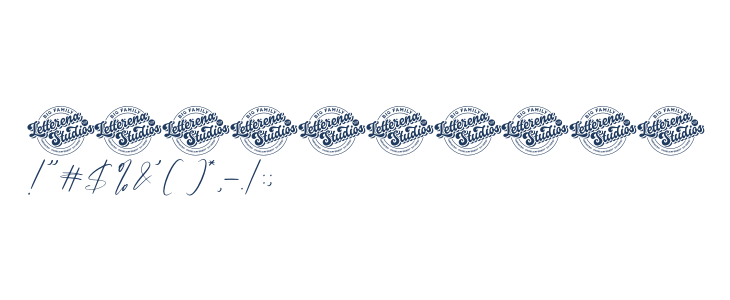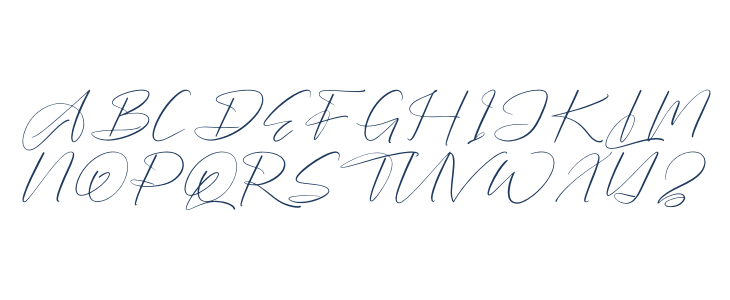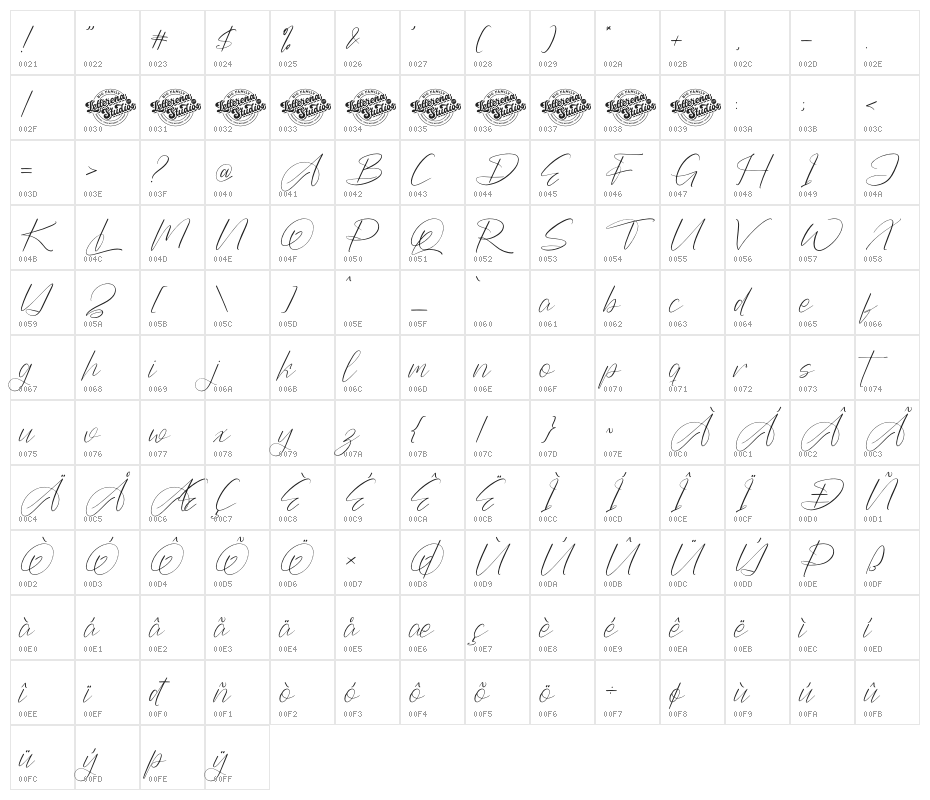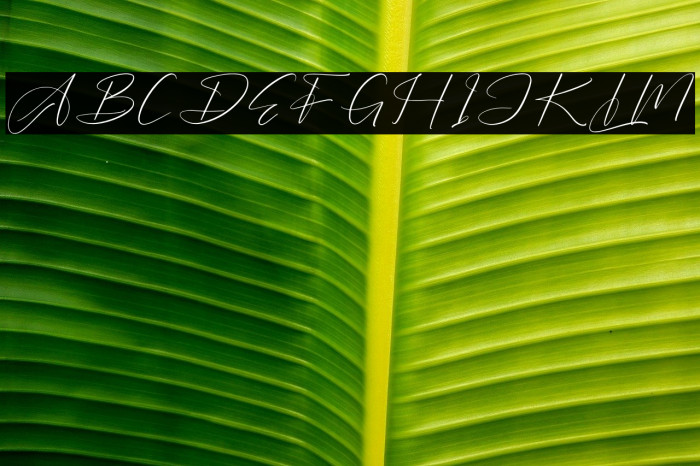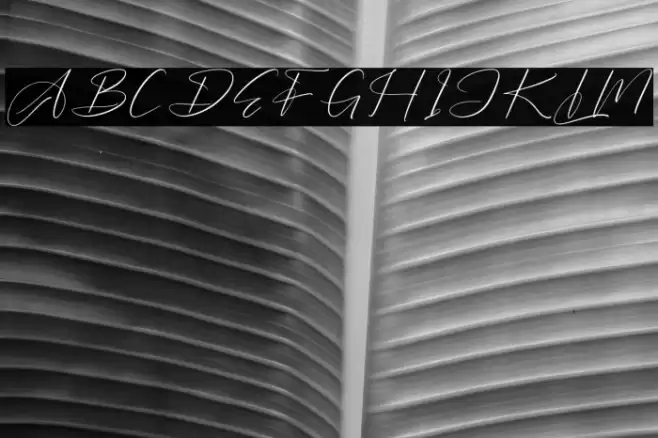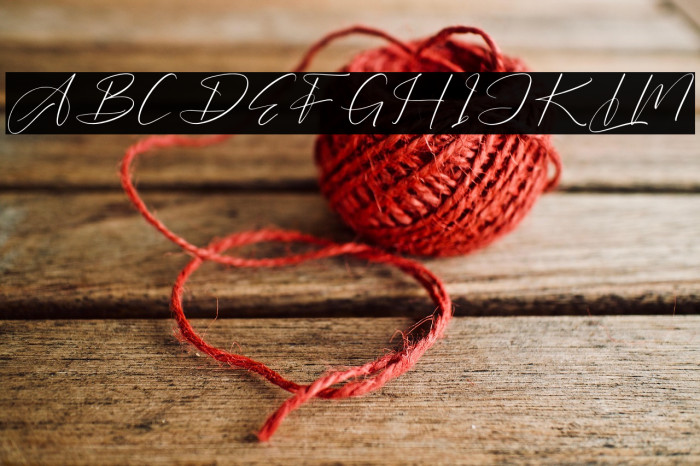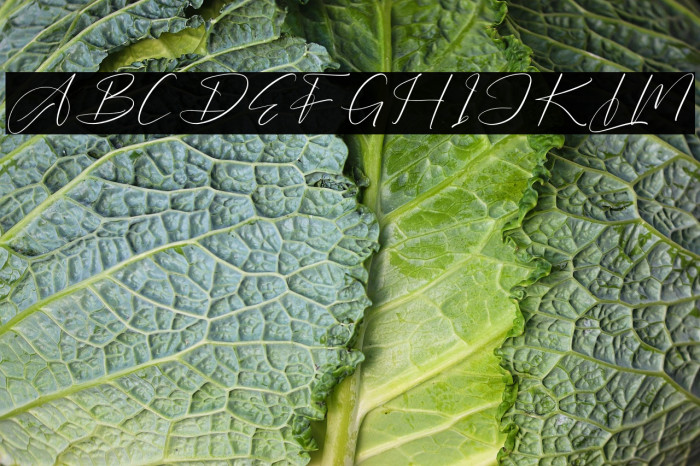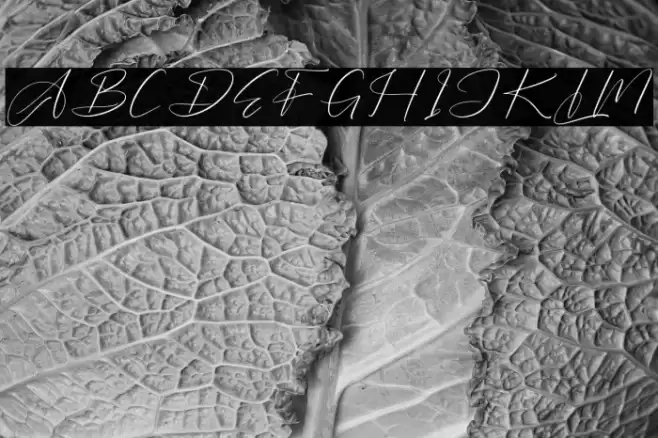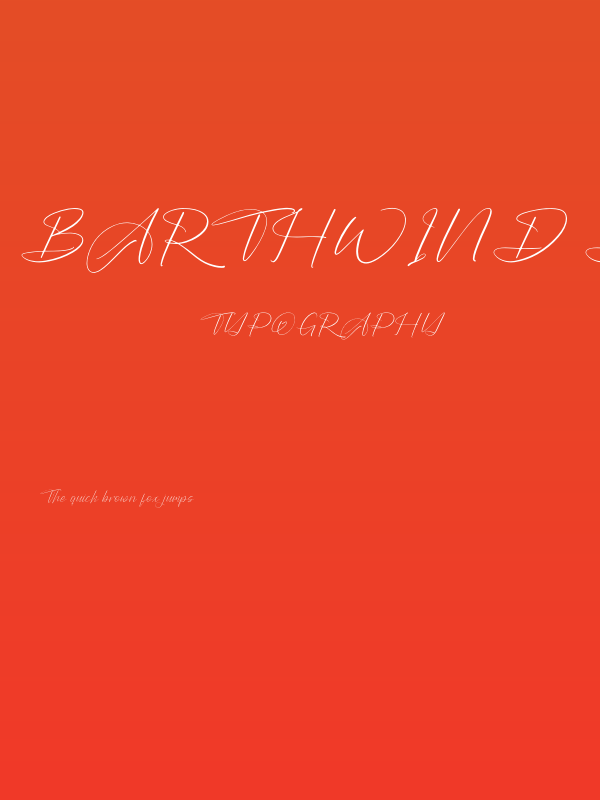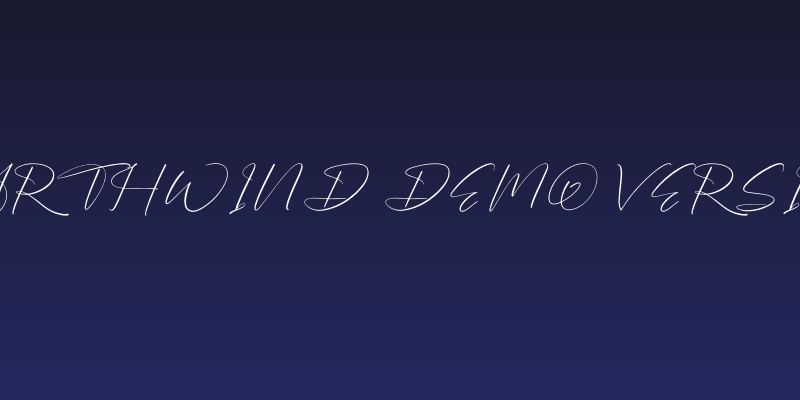
Barthwind DEMO VERSION Font
Barthwind DEMO VERSION Description
A cursive, handwritten style font with elegant, flowing lines and a delicate appearance.
| Overall Style | Elegant, Script, Handwritten |
| Use Case | Invitations, greeting cards, personal branding, logos, decorative headings. |